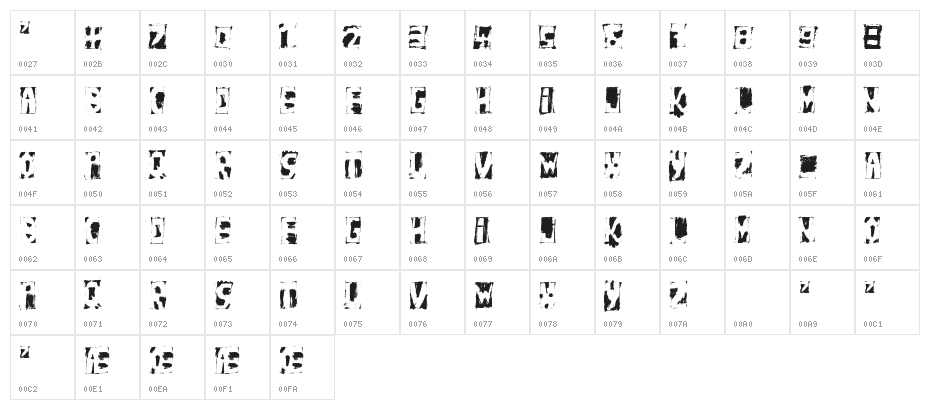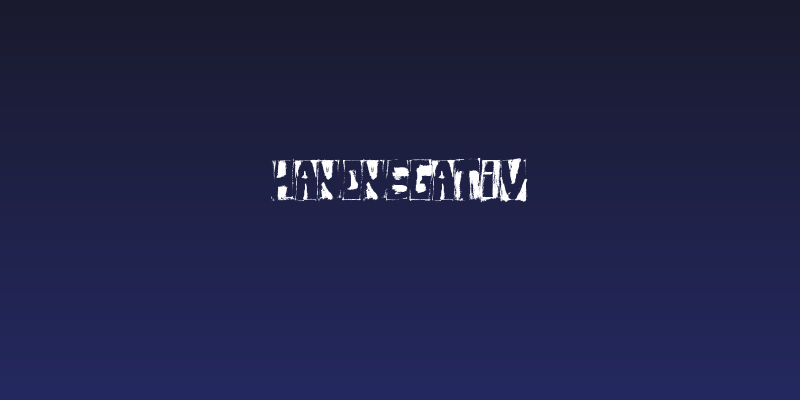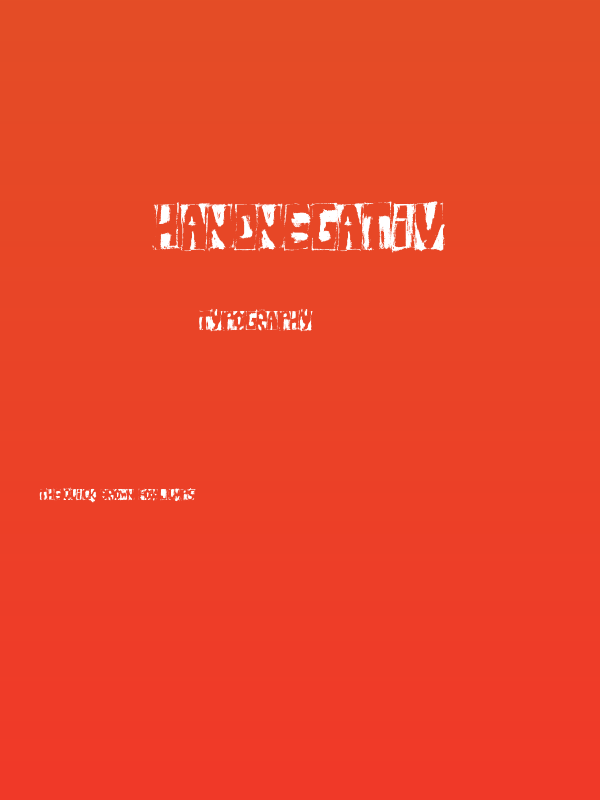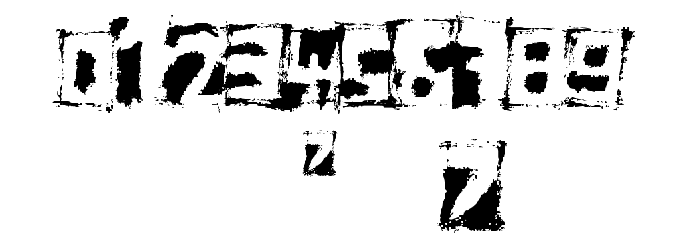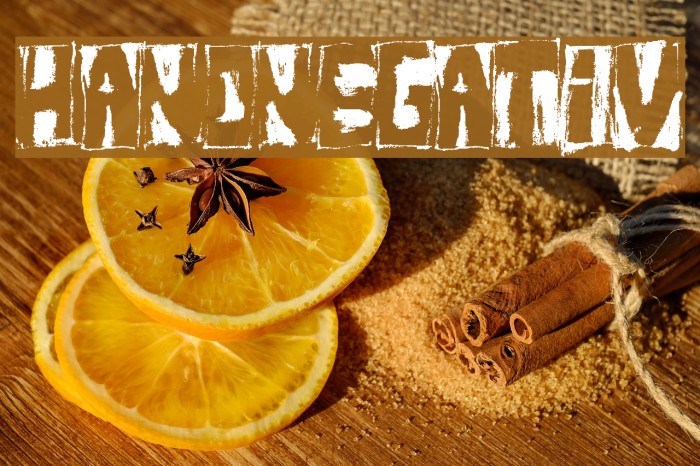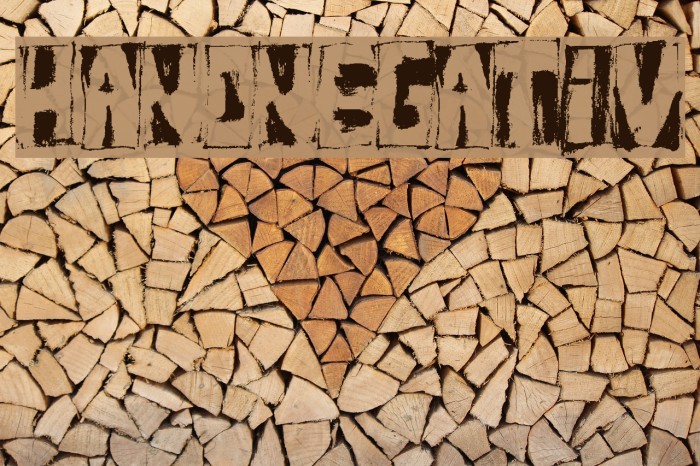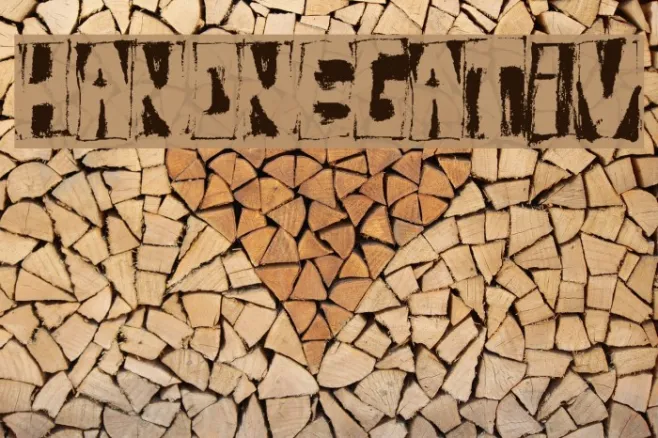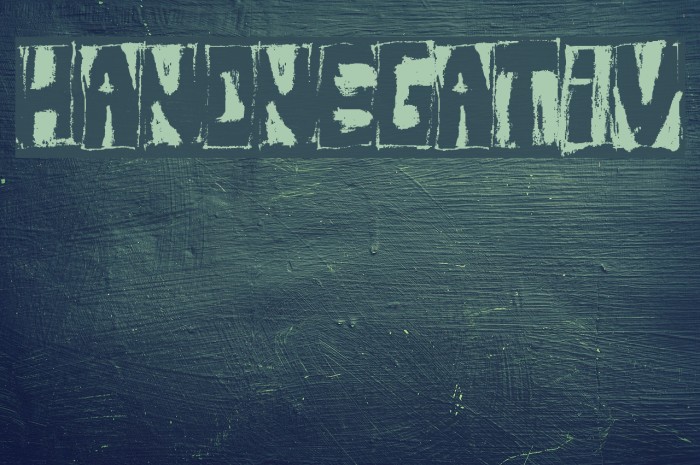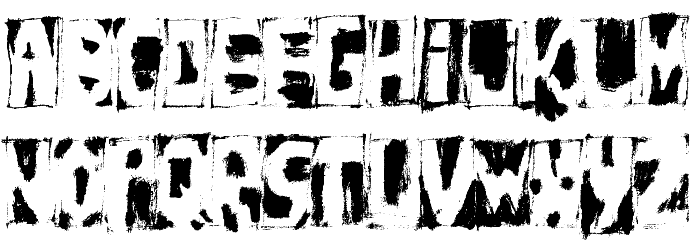
HandNegativ Font
This font features a bold, distressed style with a hand-painted appearance. Each character is uniquely textured, giving it a rugged and artistic feel. The letters are uppercase with a consistent height, while the numbers and special characters maintain the same distressed aesthetic. The font's rough edges and uneven strokes create a dynamic and energetic look, making it ideal for projects that require a bold statement. Its artistic flair is perfect for creative designs, adding a touch of individuality and character.
| Overall Style | Artistic, Bold, Distressed |
| Proposed Projects | Ideal for posters, album covers, street art designs, and any project needing a bold, artistic touch. |